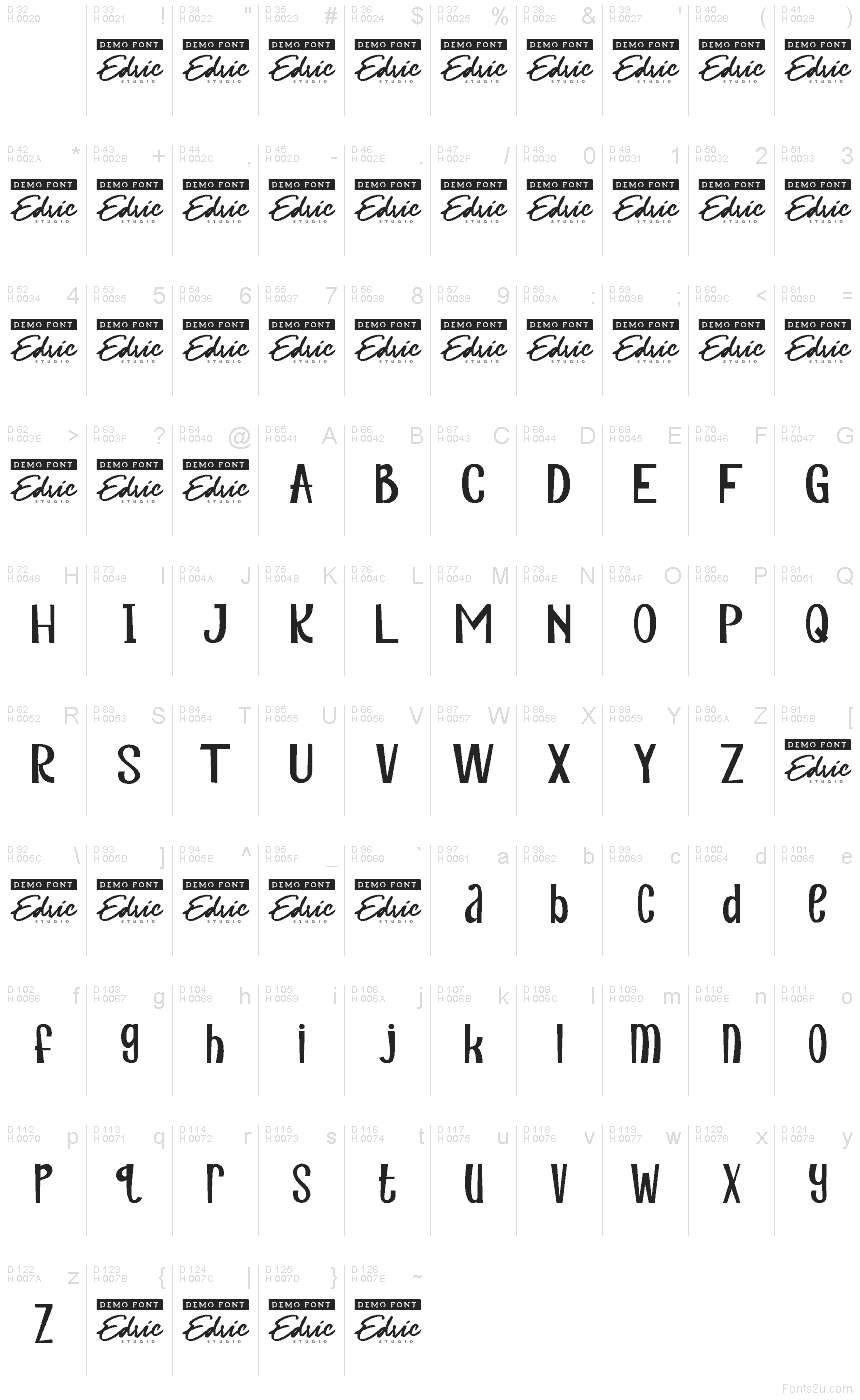
Kathleen Tico Demo
Kathleen Tico font by Edric Studio is an expressive and quirky typeface that carries an artistic flair. Its condensed shapes hold retro influences in mind, yet it manages to achieve its own eclectic aesthetic that resists classification. The free display font can be described as unusual, unconventional, yet fun.